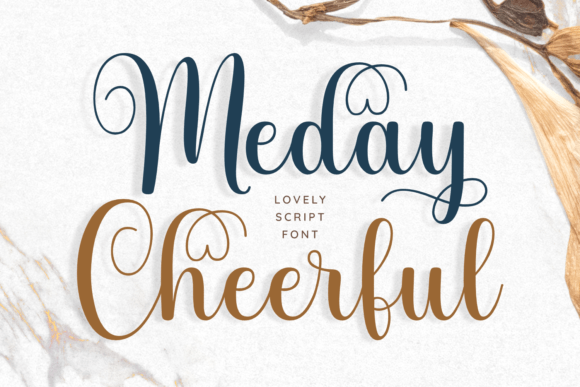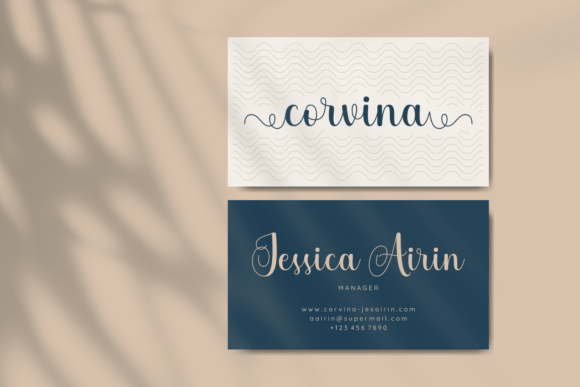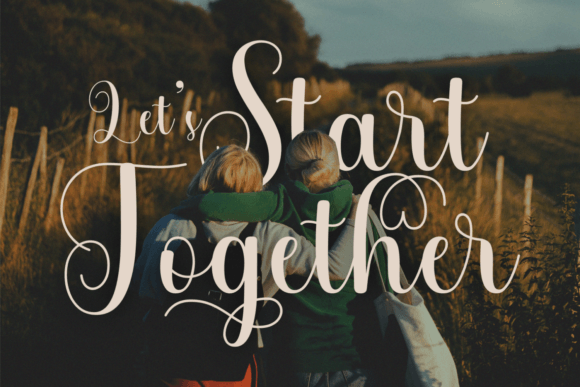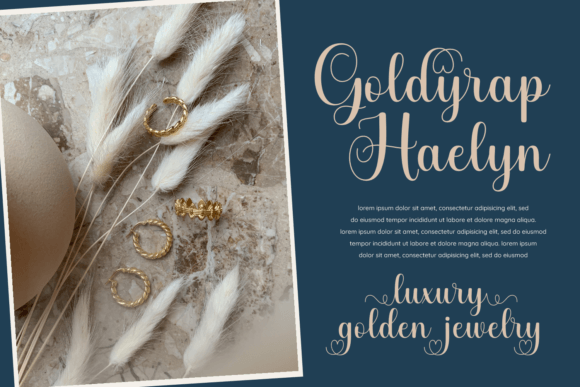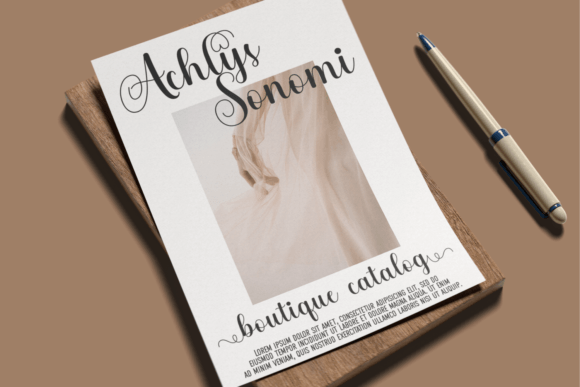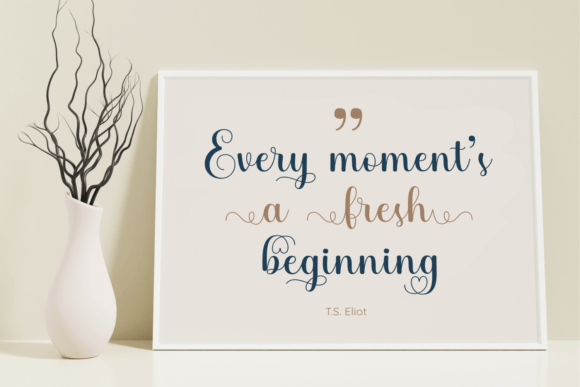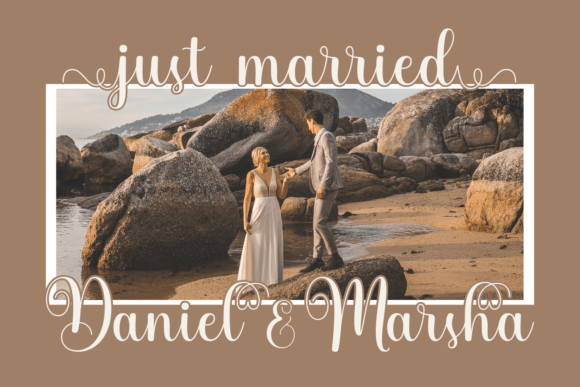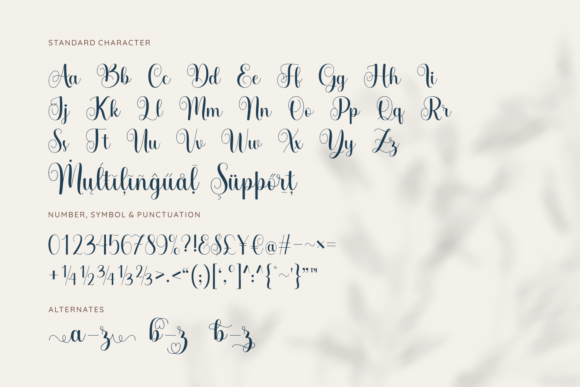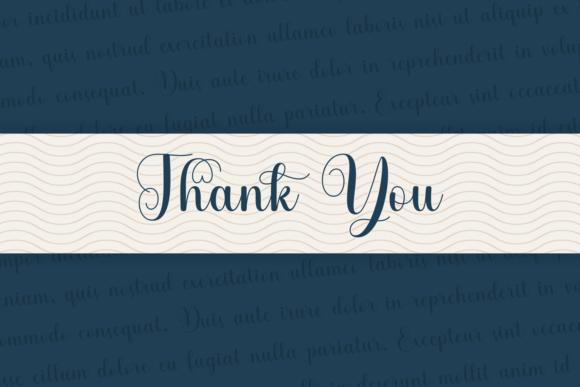
Meday Cheerful Font
About Meday Cheerful Font
“Meday Cheerful” is a beautiful and romantic script font designed to bring a classy and elegant note to your creative projects. With its stylish and graceful letterforms, this font is versatile and suitable for a range of applications, including invitations, cards, web graphics, photography albums, quotes, and more.
The romantic script style of “Meday Cheerful” adds a touch of sophistication to your designs, making it particularly well-suited for projects that require a sense of elegance and charm. Whether used in wedding invitations, greeting cards, or web graphics, this font contributes to a refined and stylish aesthetic.
In invitations, “Meday Cheerful” becomes a key element in setting the tone for special occasions. Its romantic and classy vibe enhances the overall visual appeal, making it a fitting choice for events that call for a touch of glamour.
For cards, the font brings a level of elegance that elevates the design, creating a memorable and tasteful impression. Its stylish letterforms add a timeless quality, making it suitable for a variety of occasions and sentiments.
In web graphics, photography albums, and quotes, “Meday Cheerful” stands out as a font that adds a touch of beauty and sophistication to the visual elements. Its PUA encoding ensures easy access to glyphs and swashes, allowing for customization and creative freedom in your designs.
In conclusion, “Meday Cheerful” is a font that embodies beauty and romance, making it a perfect choice for various design projects. Whether you’re working on invitations, cards, web graphics, or quotes, let “Meday Cheerful” be the stylish and elegant script font that adds a touch of class to your creations.